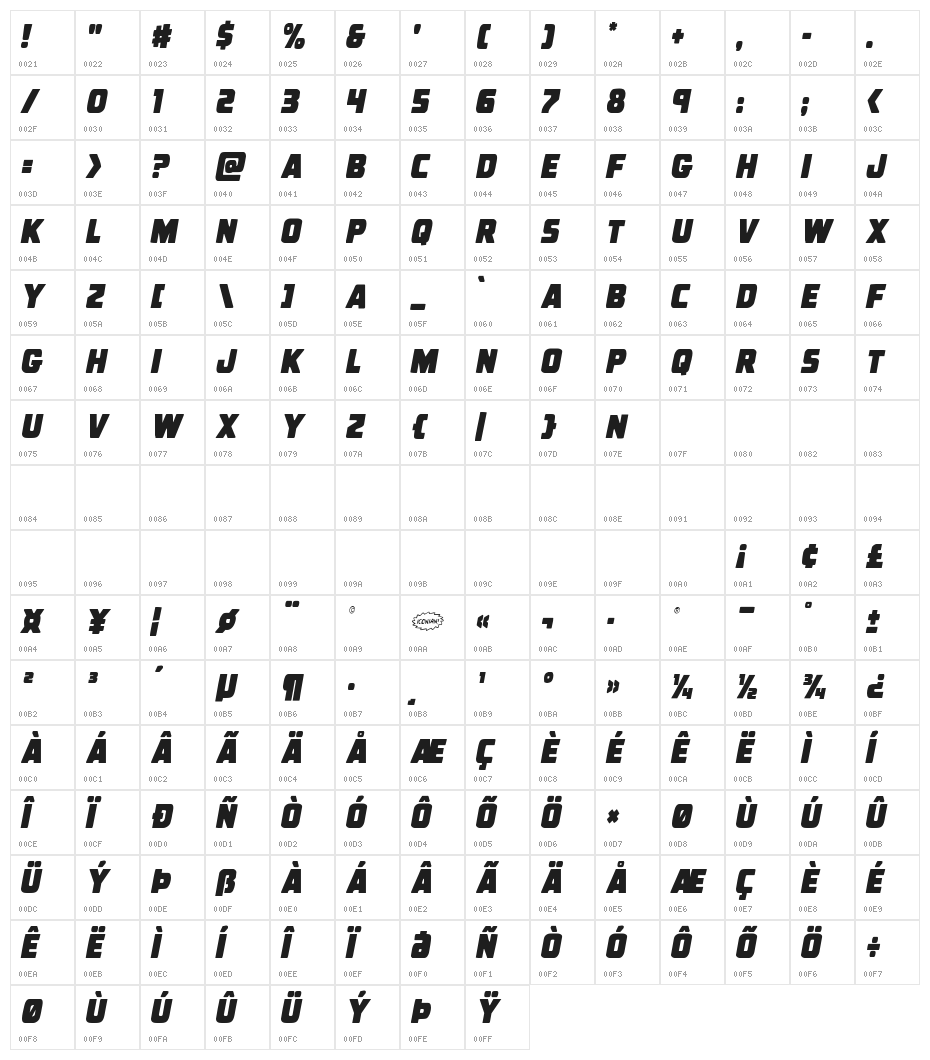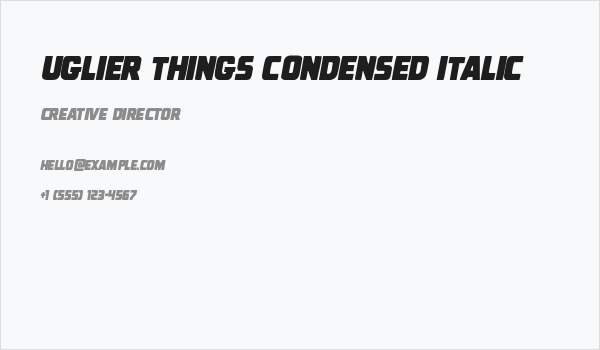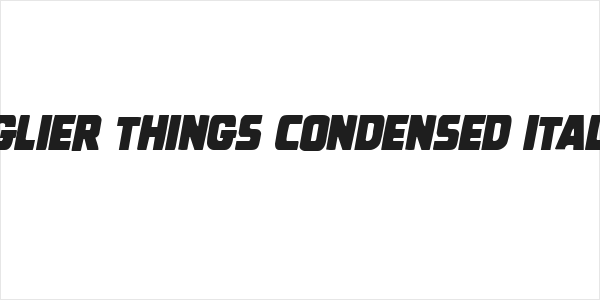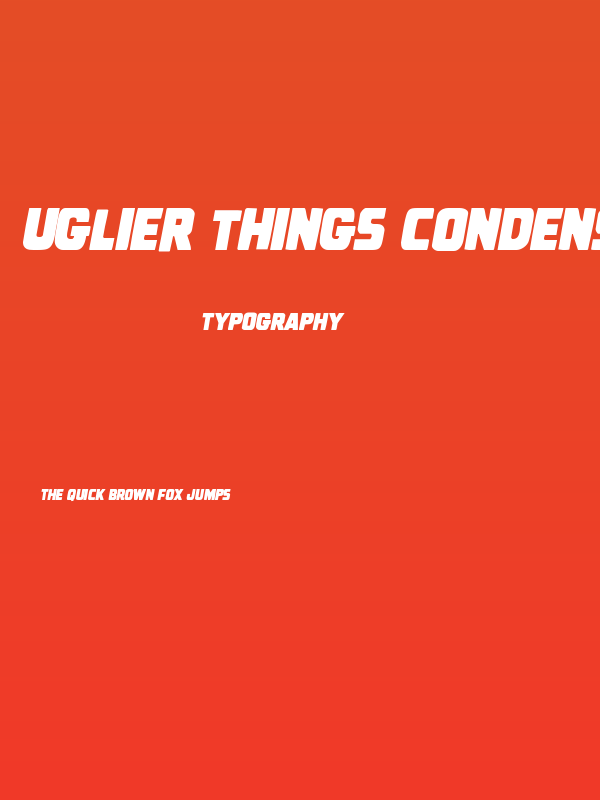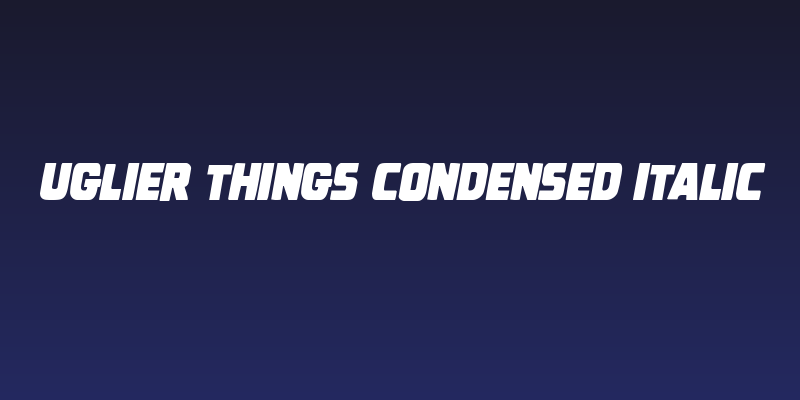
Uglier Things Condensed Italic Font
Uglier Things Condensed Italic Description
This font features a bold and dynamic style with a condensed and italicized form. The characters are robust and impactful, with a strong presence that commands attention. The angular design and slanted orientation give it a sense of motion and energy, making it ideal for projects that require a bold statement. The uppercase and lowercase letters maintain a consistent weight, ensuring readability while adding a modern flair. The numerals and special characters are designed to complement the overall aesthetic, providing versatility for various design needs.